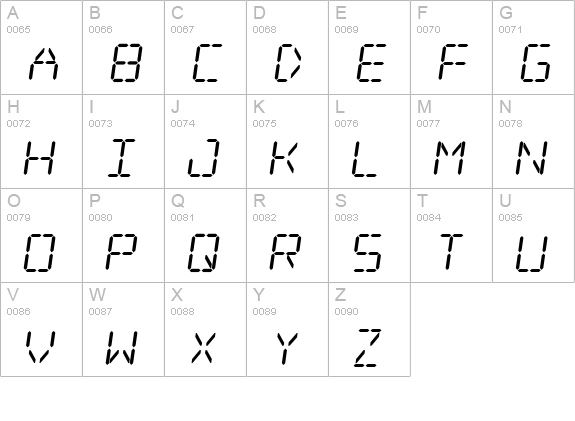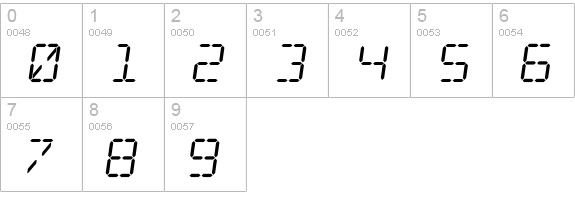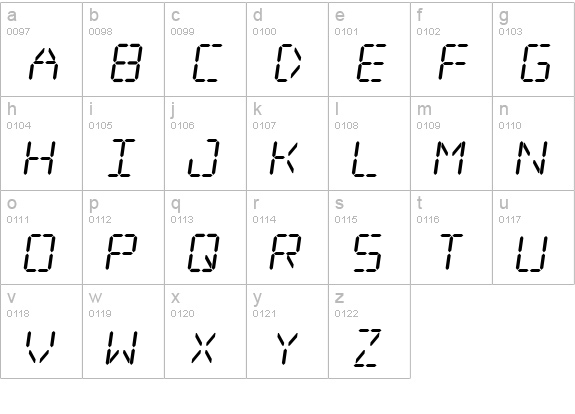
Digital Dream Skew font is a unique and eye-catching typeface that adds a futuristic touch to any project. With its tilted and distorted design, this font is perfect for creating a modern and dynamic look in your designs. The sleek and contemporary style of Digital Dream Skew font makes it versatile for a variety of projects, from posters to logos to social media graphics. The best part is that Digital Dream Skew font is available for free download at FontsMarket.com. You can easily access this font and use it in your projects without any cost. Whether you are a designer looking to add a creative flair to your work or a hobbyist looking to experiment with new fonts, Digital Dream Skew font is a great choice. Download it today and elevate your designs with this captivating typeface.